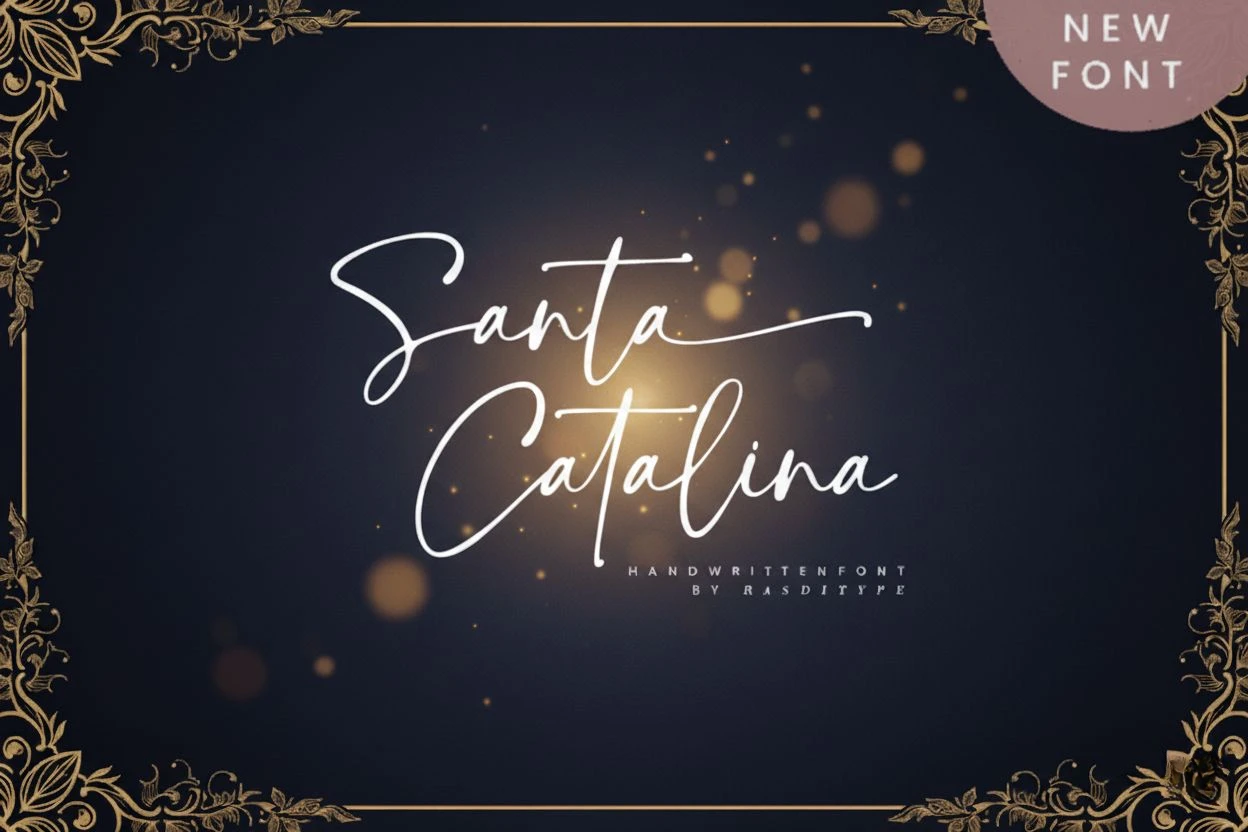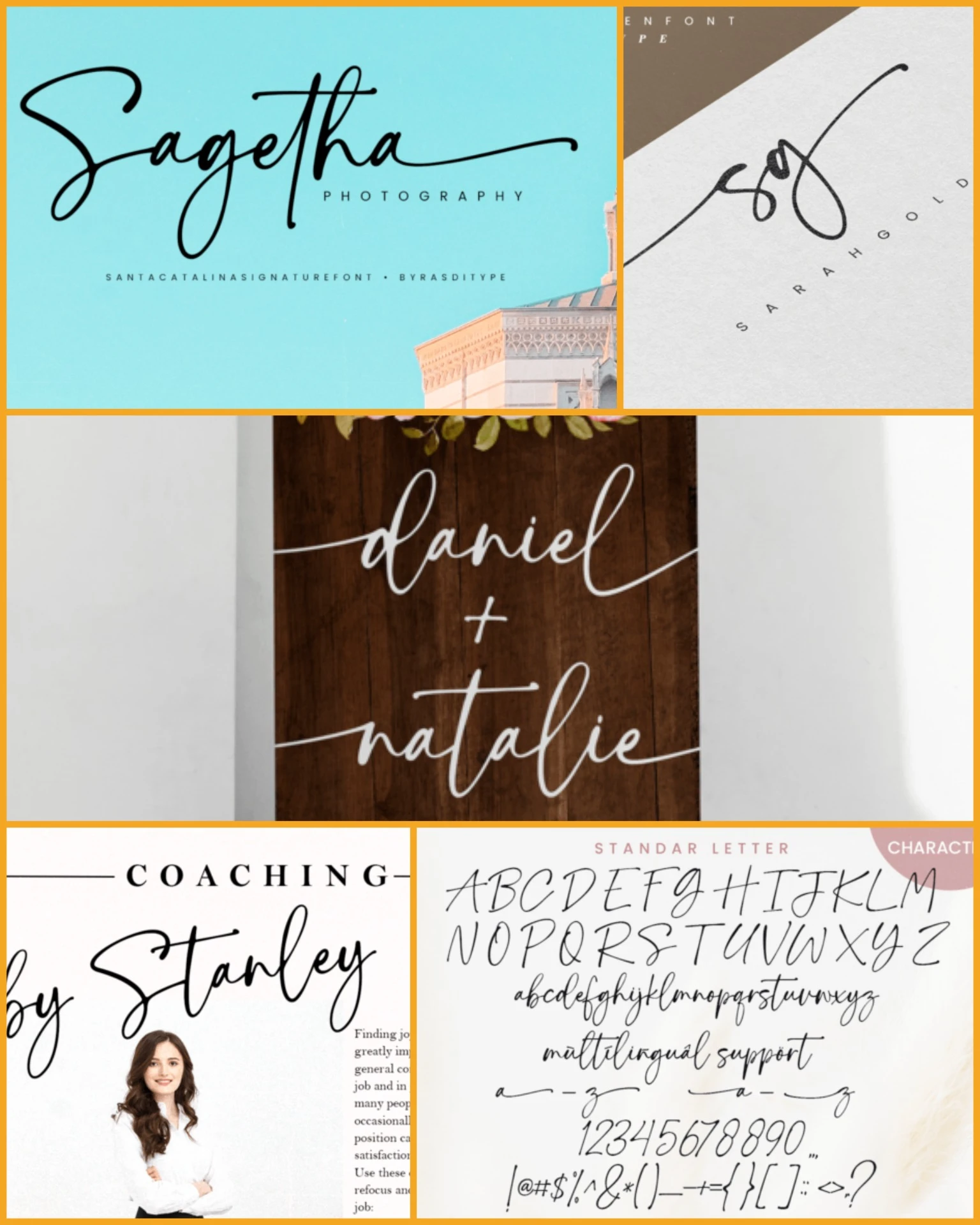
Santa Catalina – Handwritten Signature & Elegant Script
Santa Catalina is a handwritten signature font with an elegant script style — perfect for logos, wedding stationery, and photography branding.
Meet Santa Catalina, a refined handwritten script font that combines simplicity, sophistication, and authenticity. Its clean lines and elegant flow make it perfect for modern branding, photography logos, invitations, and website design.
Designed for creators who value style and timeless aesthetics, Santa Catalina transforms every word into a signature of elegance.